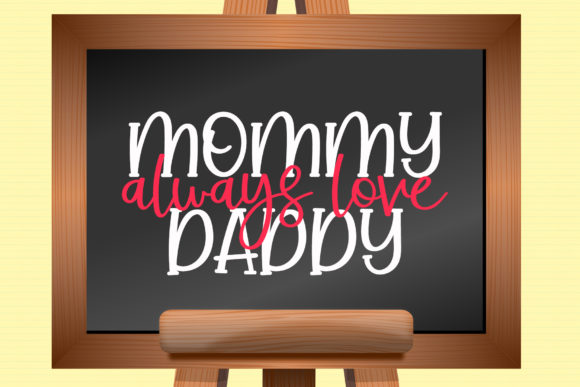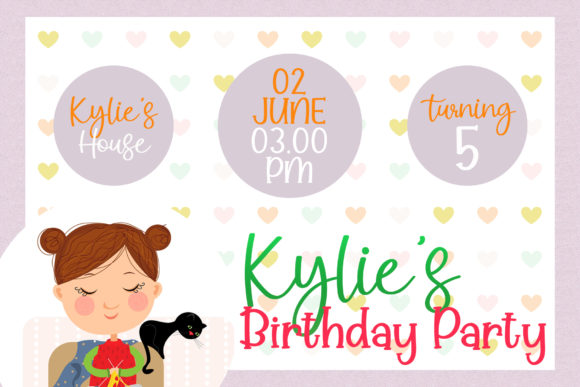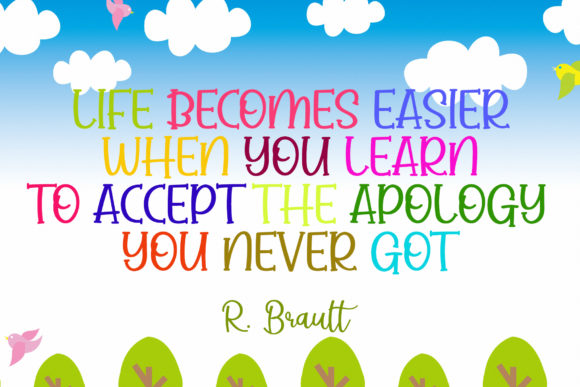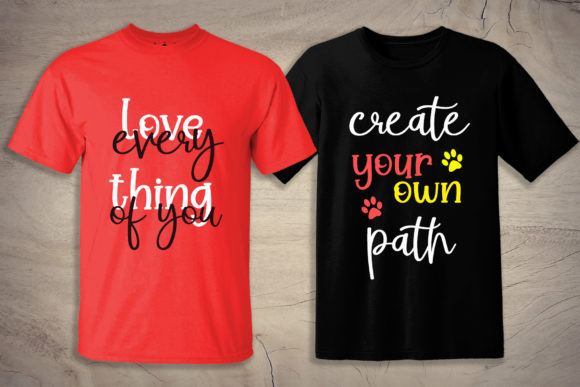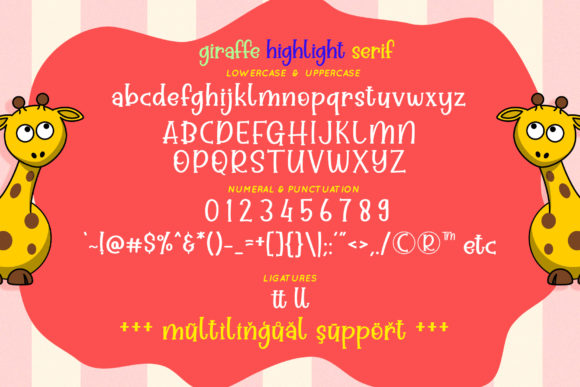
The Creative Spark that Ignites with Giraffe Highlight Font
Have you ever sat at your desk, staring at a blank canvas or a blank page, waiting for the perfect idea to strike? It’s that moment when inspiration hits, and your creativity bursts forth in a kaleidoscope of colors, shapes, and fonts. For designers, it’s a moment of pure bliss, and the right font can make all the difference. That’s where the enchanting Giraffe Highlight Font comes in – a handwritten gem that will elevate your creative ideas to new heights.
With its playful, quirky vibe, the Giraffe Highlight Font adds a touch of authenticity to any design project. Whether you’re crafting a logo, a brochure, or a social media post, this font is sure to turn heads and leave a lasting impression. Its unique character makes it a valuable asset for designers looking to add a personal touch to their work.
Giraffe Highlight Font Key Features
- Font Family: A unique, hand-drawn font designed to capture attention and add a touch of whimsy to digital content.
- Character Set: Includes a comprehensive character set, including Latin, Cyrillic, and Greek alphabets, as well as punctuation marks and symbols.
Giraffe Highlight Font Review
I’ve had the chance to work with the Giraffe Highlight Font, and I’m excited to share my honest thoughts on this quirky font.
- Unique design: Giraffe Highlight Font is unlike any other font I’ve seen. Its playful, hand-drawn style is sure to add a touch of whimsy to any project.
- Easy to read: Despite its unusual design, the font is surprisingly easy to read, even at smaller sizes.
- Great for creative projects: The font’s playful style makes it perfect for creative projects like children’s books, greeting cards, or social media graphics.
- Limited legibility: While the font is easy to read in some contexts, it can be challenging to read in others, particularly at very small sizes or in dense text.
- Lack of versatility: The font’s playful style may not be suitable for all types of projects, such as corporate or technical writing.
- May not be suitable for body text: Due to its unique design, Giraffe Highlight Font may not be the best choice for large blocks of text.
The Giraffe Highlight Font is a fun and creative addition to any designer’s toolkit. While it has some limitations, its unique design and ease of use make it a great choice for the right projects. With some careful consideration of its limitations, I think this font has a lot of potential for adding a touch of personality to your designs.
The Giraffe Highlight Font is ideal for:
- Creating eye-catching headings and titles.
- Highlighting key information, such as statistics or quotes.
- Adding visual interest to presentations, documents, and designs.